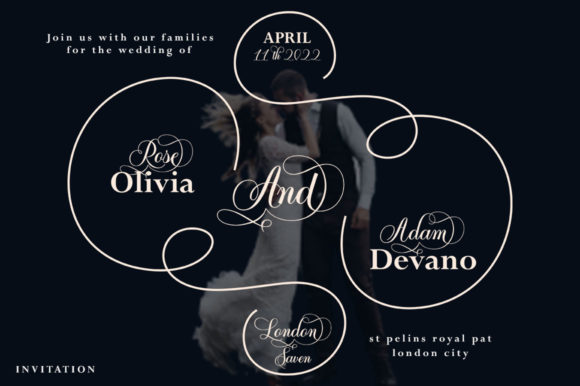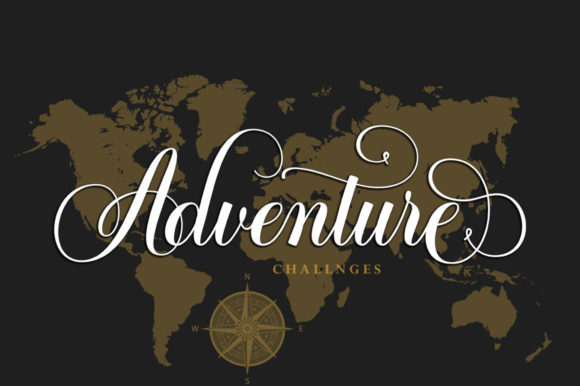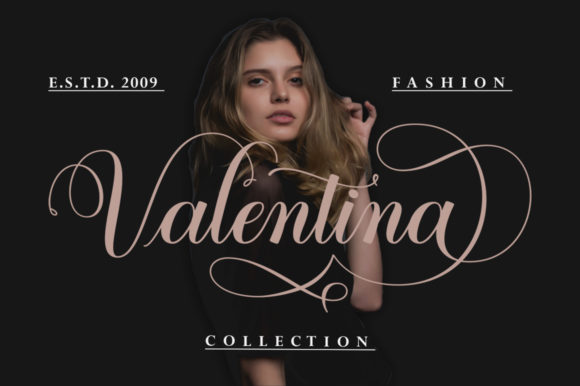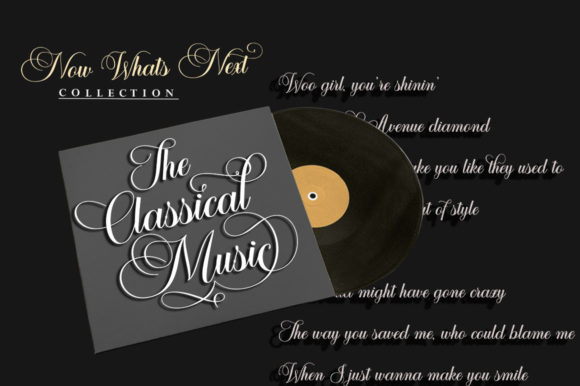
About Rastania Script Font
Rastania Script is a stunning and meticulously crafted script font that exudes elegance and charm. With its intricate details and refined design, Rastania Script adds a touch of sophistication to any design project.
Every aspect of Rastania Script has been carefully considered, resulting in a font that is not only visually appealing but also highly functional. The clean and precise lines of the characters give the font a polished and professional appearance, making it a versatile choice for a wide range of design applications.
One of the standout features of Rastania Script is its extensive set of glyphs and swashes, which are conveniently accessible through its PUA (Private Use Area) encoding. This means that you have easy access to a wide variety of alternate characters, ligatures, and decorative elements that allow you to customize and enhance your designs. Whether you’re looking to add flourishes, ornamental swashes, or unique ligatures, Rastania Script provides you with the tools to create captivating and unique compositions.
The font’s dazzling and sophisticated style makes it well-suited for a variety of projects. From branding and logo design to invitations, packaging, and more, Rastania Script adds a touch of luxury and refinement to your creations. Its versatility and attention to detail make it an excellent choice for elevating the visual impact of your work.
Whether you’re working on a wedding invitation, a business card, a website design, or any other project that requires an elegant and detailed script font, Rastania Script is sure to deliver exceptional results. With its PUA encoding, you have the freedom to explore and experiment with the font’s various glyphs and swashes, allowing you to create truly unique and visually striking designs that leave a lasting impression.